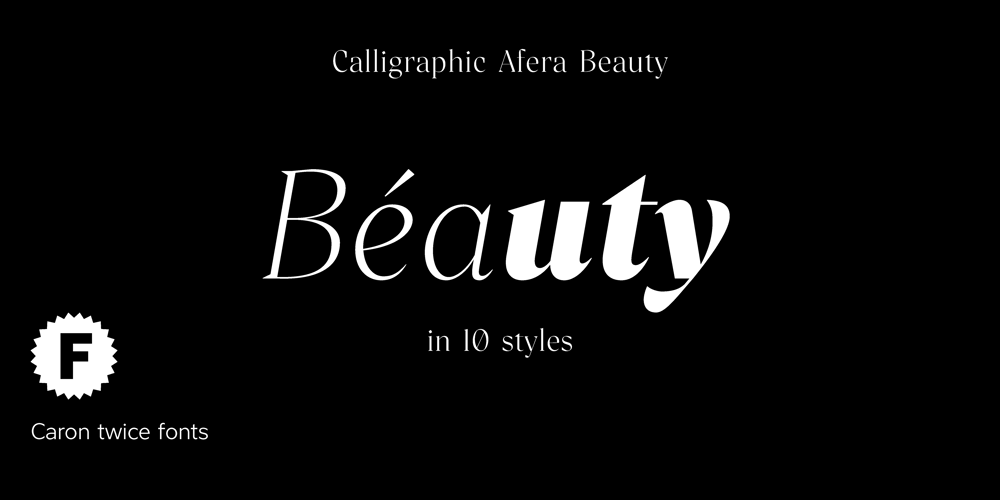
Calligraphic Afera Beauty Font Family was designed by Martin Činčár and published by Caron twice. Calligraphic Afera Beauty contains 12 styles and family package options. Calligraphic Afera is beautiful. This is a strong, high-contrast typeface with a dynamic disposition based on drawing with a cut nib, i.e. traditional typography. It exhibits its specific disposition in the details of each character. The font is a suitable tool for headlines on a website, blog, magazine, or poster. It also works well for package design. This calligraphic style is an elegant tool for headings communication.Specimen:http://carontwice.com/files/specimen_Calligraphic_Afera_Beauty.pdf